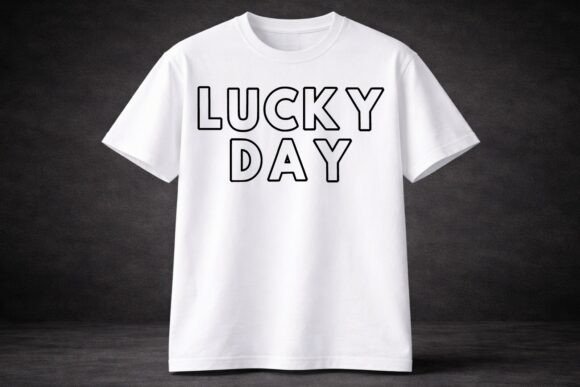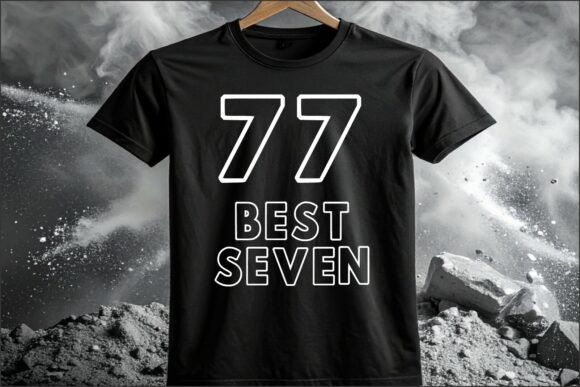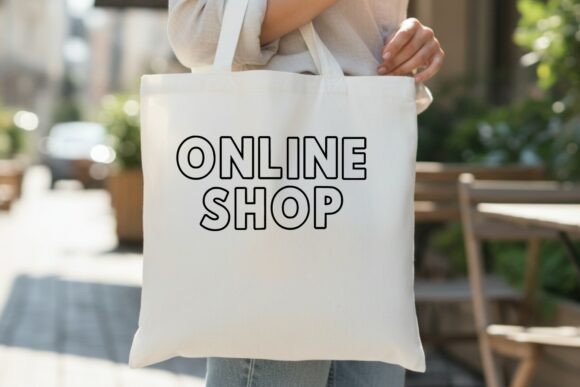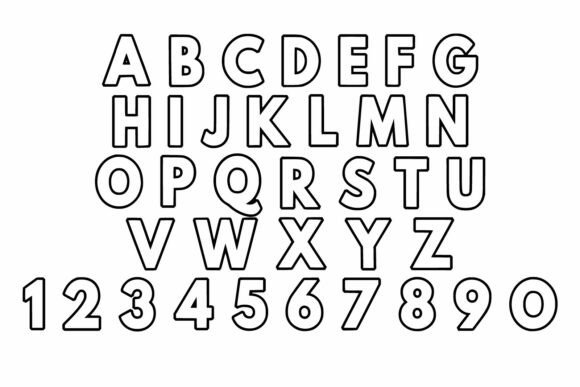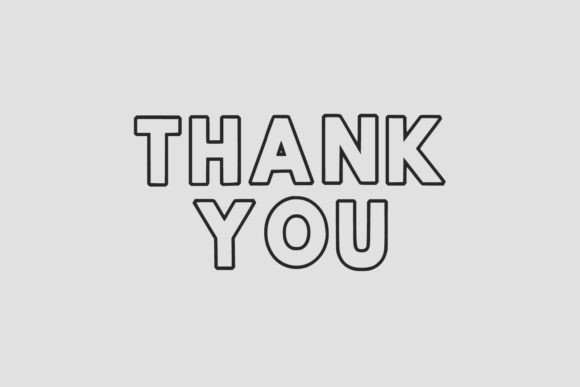
Introduction to Outline Friday Font
Have you ever been stuck brainstorming a design concept, scrolling through font libraries, and still can’t find the perfect fit for your project? That’s where the magic of Outline Friday Font comes in. This modern, bold outline display font has been a game-changer for designers looking to add a touch of sophistication and creativity to their work.
As a valuable resource for any design project, Outline Friday Font is perfect for eye-catching headlines, posters, logos, branding, packaging, and t-shirt designs. Its minimal yet bold outline style makes it versatile for modern, retro, and creative projects, ensuring that your designs stand out while maintaining a clean and professional look.
With its clean lines and strong letter shapes, Outline Friday Font is a high-quality design resource that’s perfect for designers of all levels. Whether you’re working on a free download or a paid project, this font is sure to elevate your design to the next level.
Key Features of Outline Friday Font
- High-quality design resource ideal for creative projects and presentations.
- Unique, bold, and modern outline design makes it perfect for adding a creative touch to any project.
Honest Review: Outline Friday Font
I recently stumbled upon the Outline Friday Font, a free download that has quickly become a valuable design resource for my creative projects. This high-quality font is perfect for adding a touch of modernity to any design, and its transparent background makes it incredibly versatile.
- High-quality design: The Outline Friday Font is clean, crisp, and visually appealing, making it a great addition to any design project.
- Transparent background: This feature allows for easy layering and manipulation, giving designers the flexibility to create unique and complex designs.
- Limited character set: The Outline Friday Font has a relatively small character set, which may limit its use for projects that require a wide range of characters.
- No bold or italic variations: While the font itself is clean and modern, the lack of bold or italic variations can make it difficult to add emphasis or create visual hierarchy.
Overall, the Outline Friday Font is a solid addition to any designer’s toolkit. While it may have some limitations, its high-quality design and transparent background make it an excellent choice for creative projects. I highly recommend giving it a try, especially for those on a budget.
Experiment with different font sizes, colors, and styles to create a unique look for your design project. You can also combine the Outline Friday Font with other design resources to create a cohesive and visually appealing design.
The Outline Friday Font is perfect for creating social media graphics, blog posts, and presentations. Its unique design and transparent background make it ideal for designs that require a high level of customization and creativity.